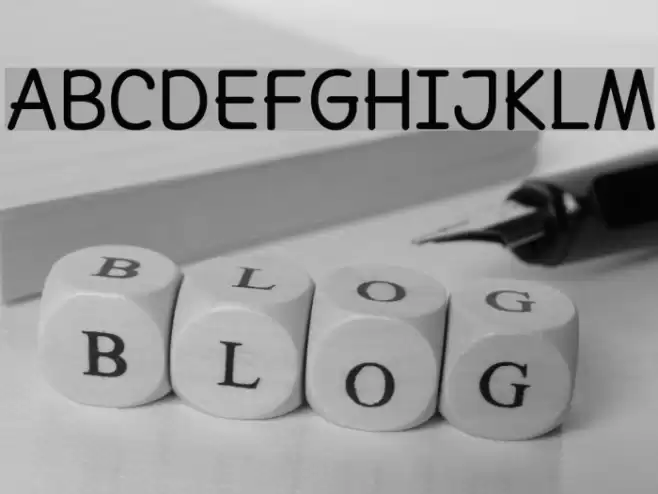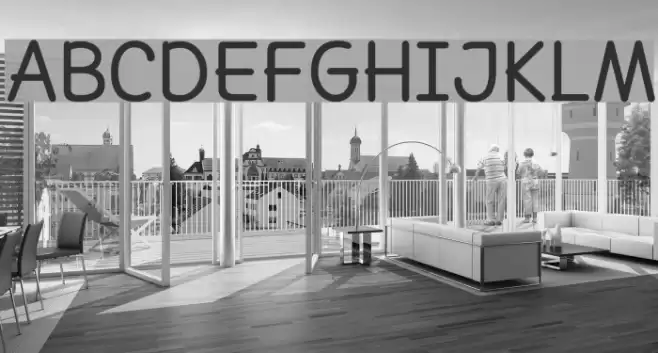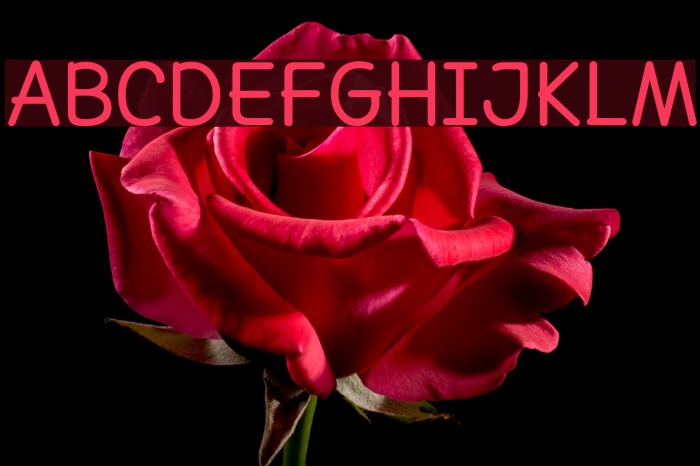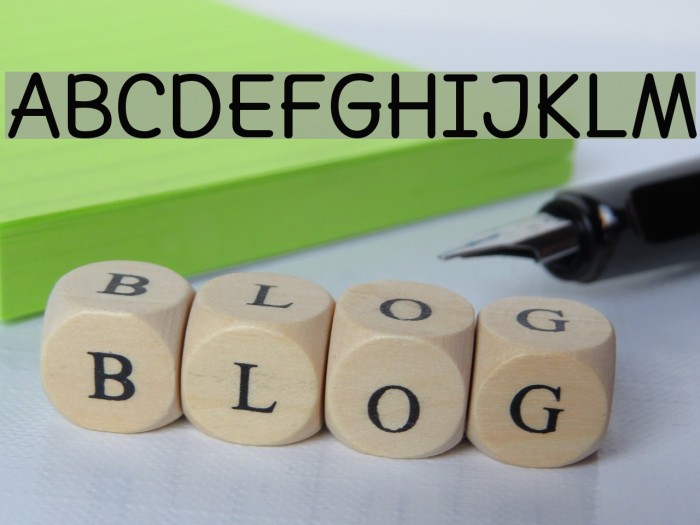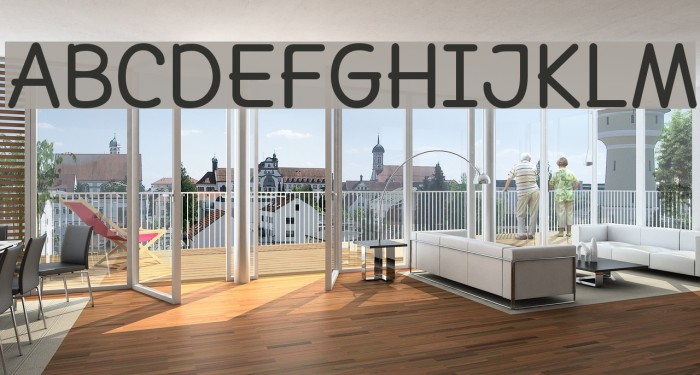
Lexia Font
Lexia Description
This font features a clean and modern sans-serif design with rounded edges, giving it a friendly and approachable appearance. The characters are evenly spaced, contributing to excellent readability across both uppercase and lowercase letters. The numerals are clear and distinct, making them suitable for various applications. Special characters are well-defined, maintaining the font's overall aesthetic. Its simplicity and clarity make it versatile for a wide range of uses, from digital interfaces to print media.
A modern, rounded sans-serif font with excellent readability from Uncategorized fonts.
- Proposed Projects: Ideal for user interfaces, websites, educational materials, and branding projects.